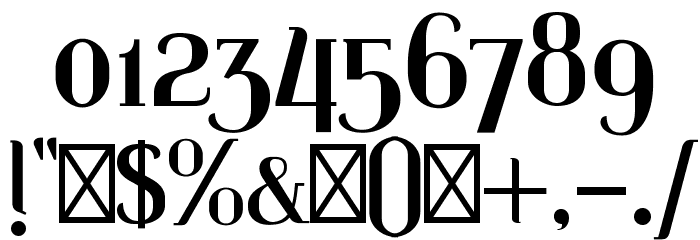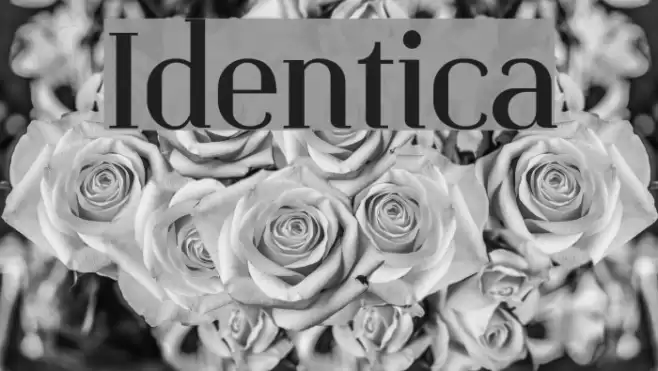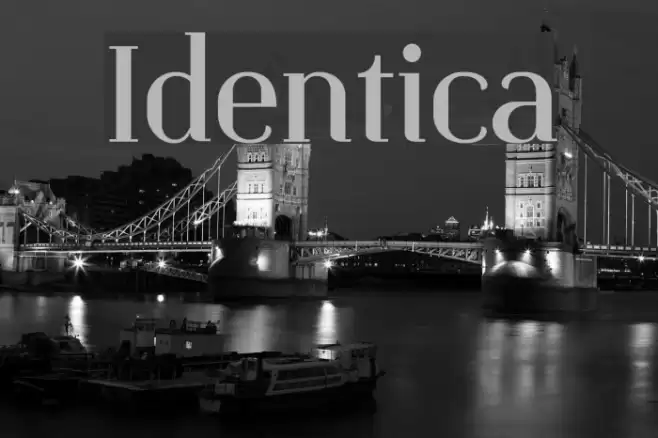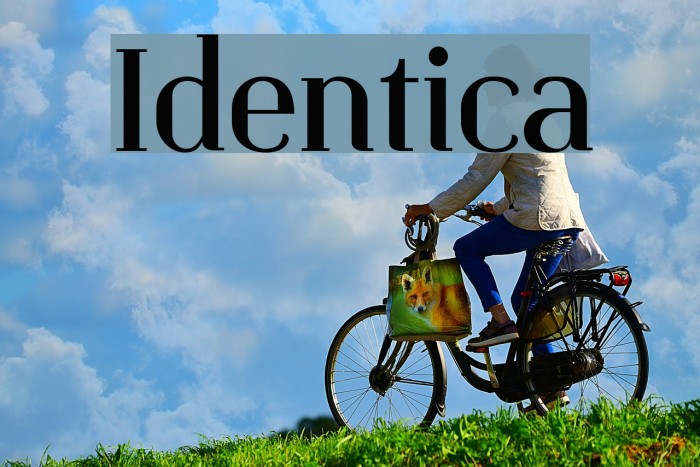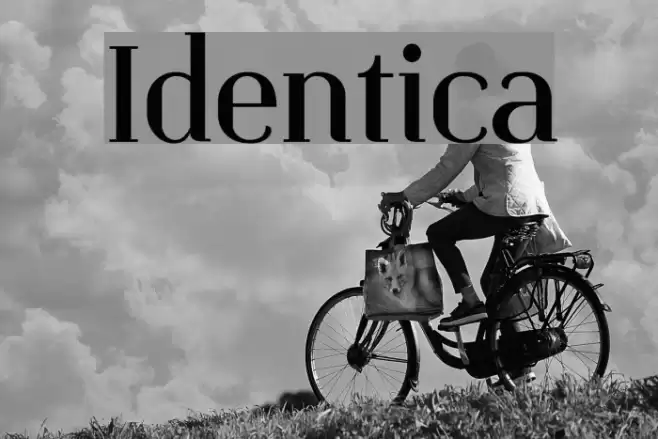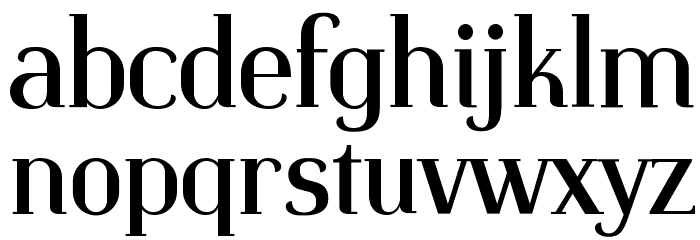
Identica Font
This font features a classic serif style with a modern twist, characterized by its elegant and refined letterforms. The uppercase letters are tall and commanding, while the lowercase letters maintain a balanced and harmonious appearance. The numerals are distinct and easy to read, making them suitable for various applications. The special characters are well-integrated, adding versatility to the font's use. The overall design is sophisticated, with a slight contrast in stroke thickness that enhances readability without compromising style.
A modern serif font with elegant, refined letterforms and slight stroke contrast.
• Proposed Projects: Ideal for editorial design, book covers, branding, and high-end product packaging.
• Overall Style: Modern
• Use Case: Headlines, Body text, Logos